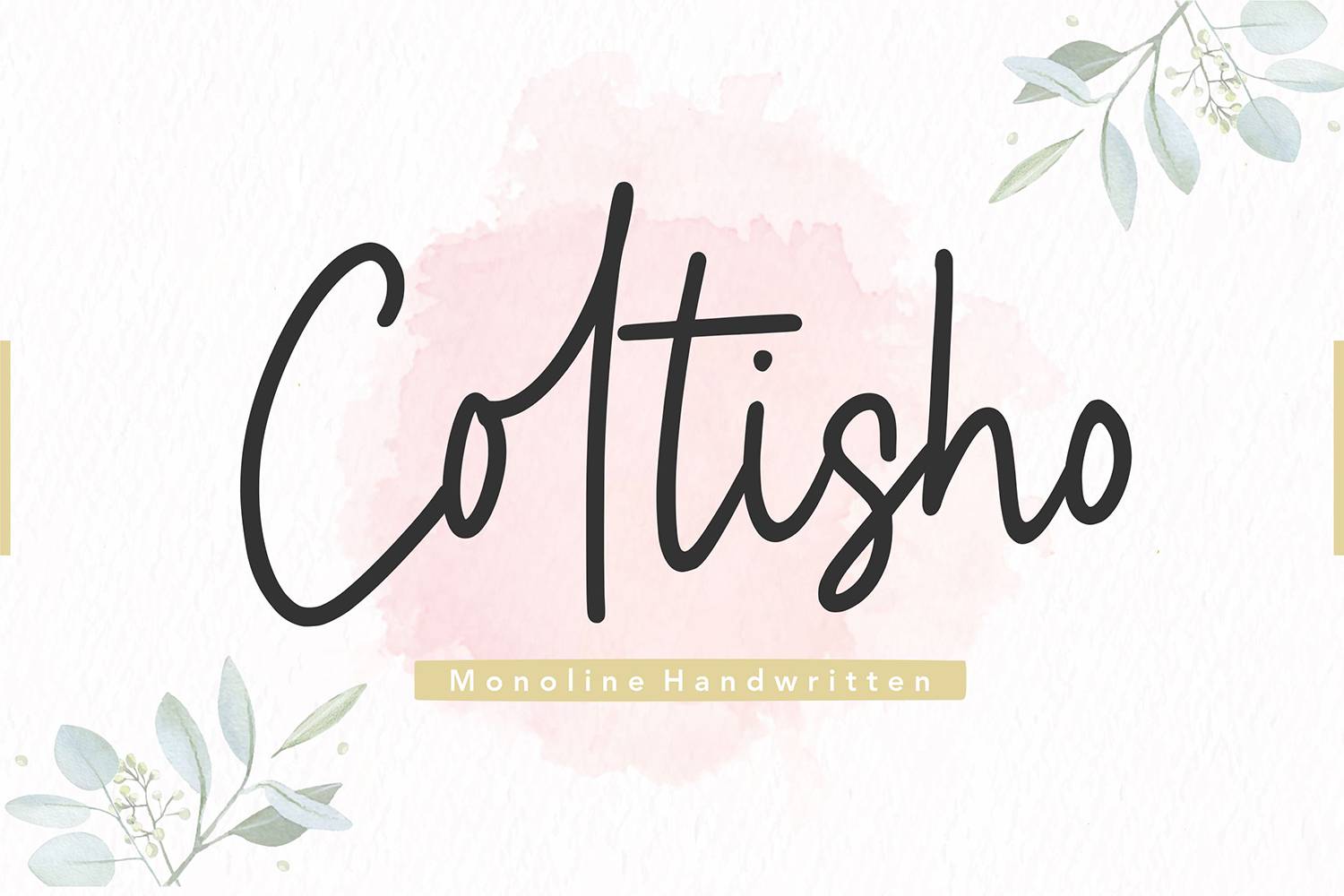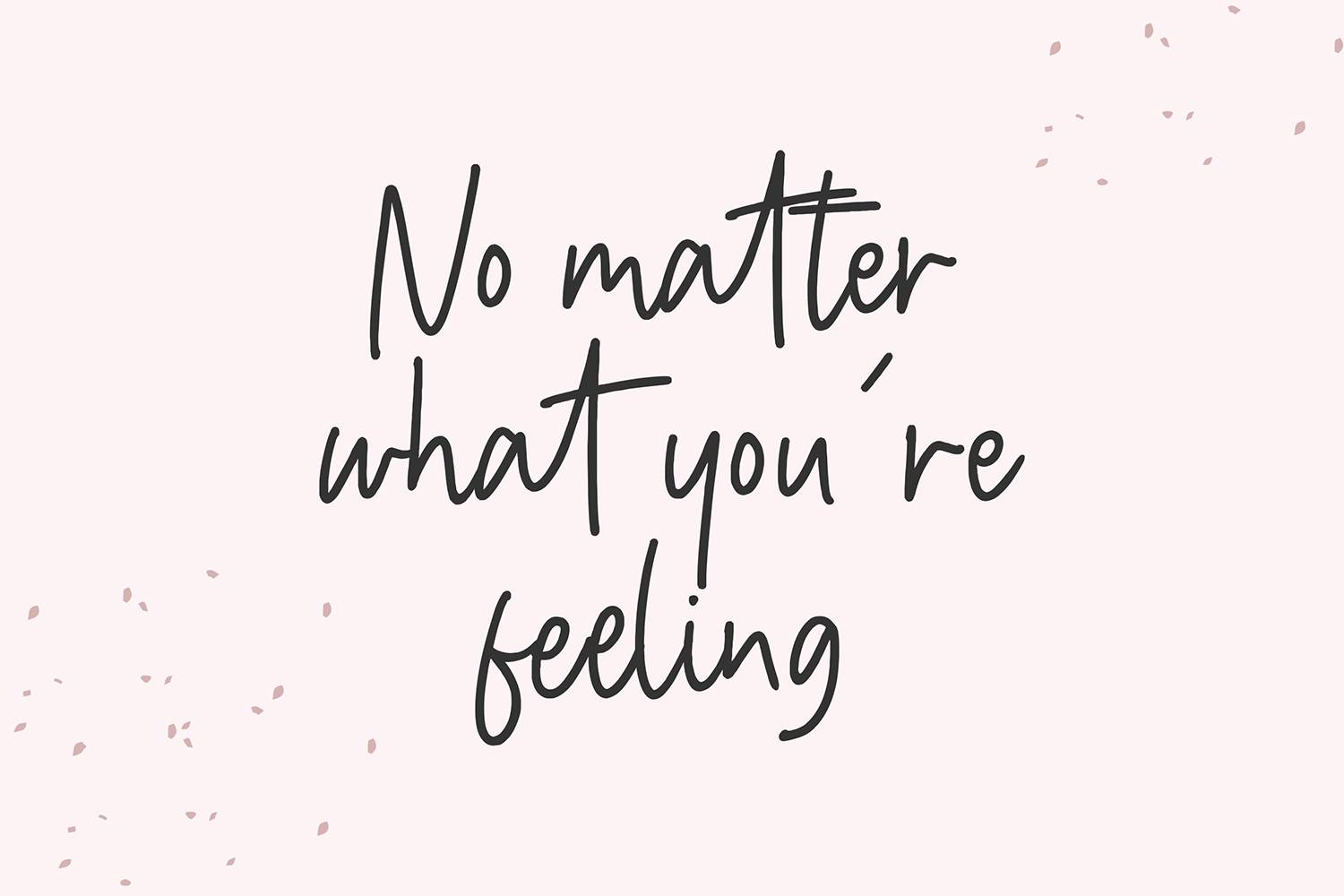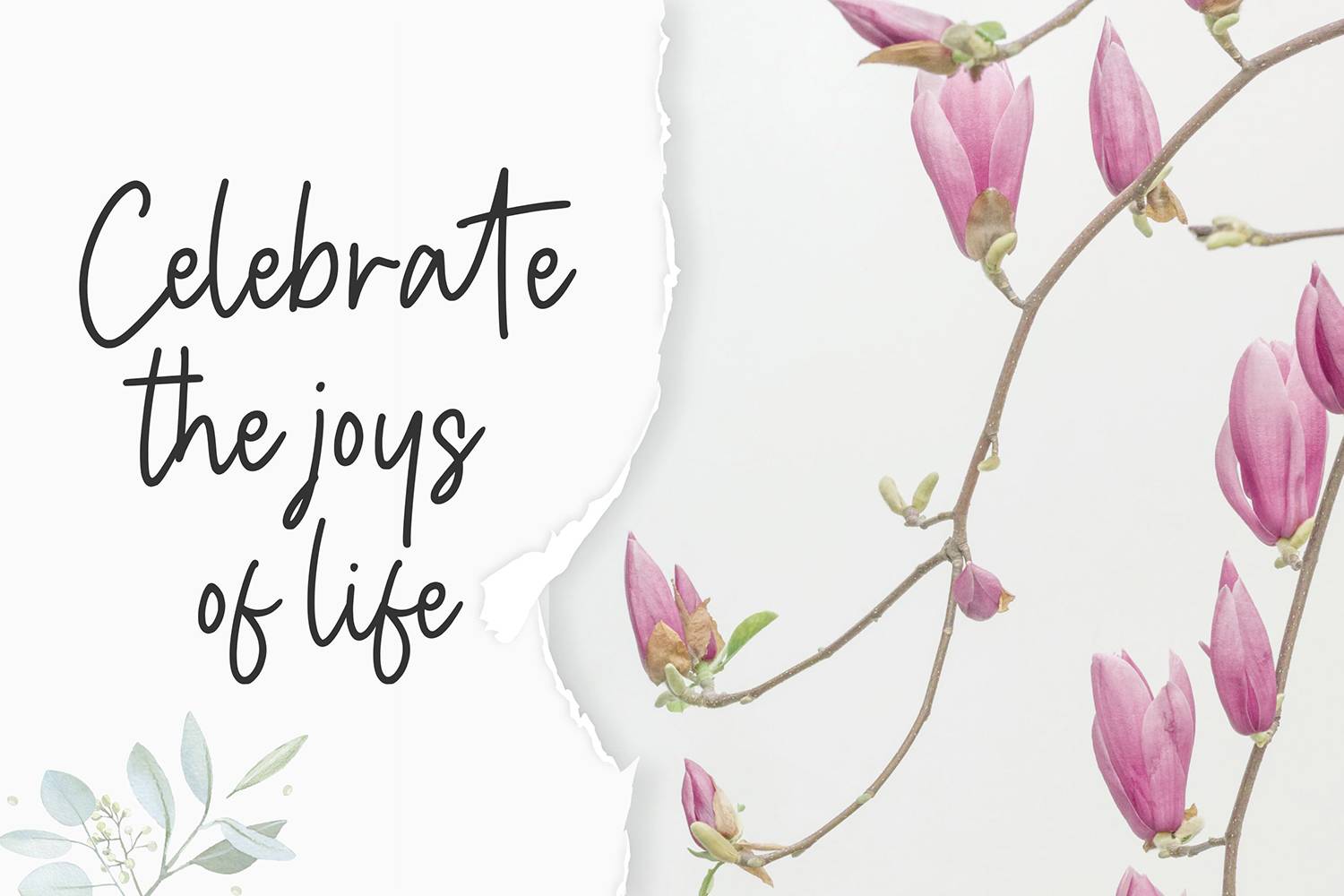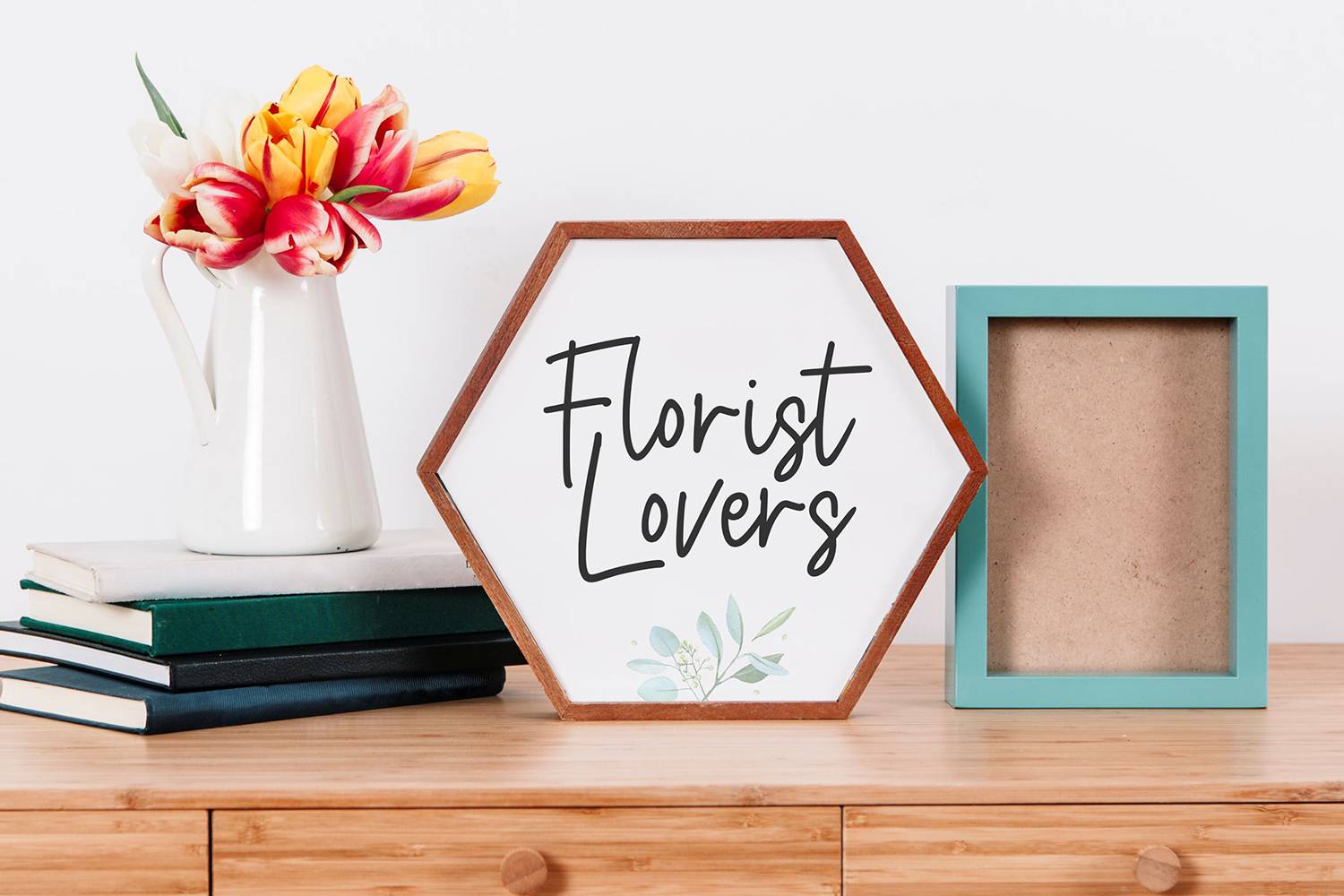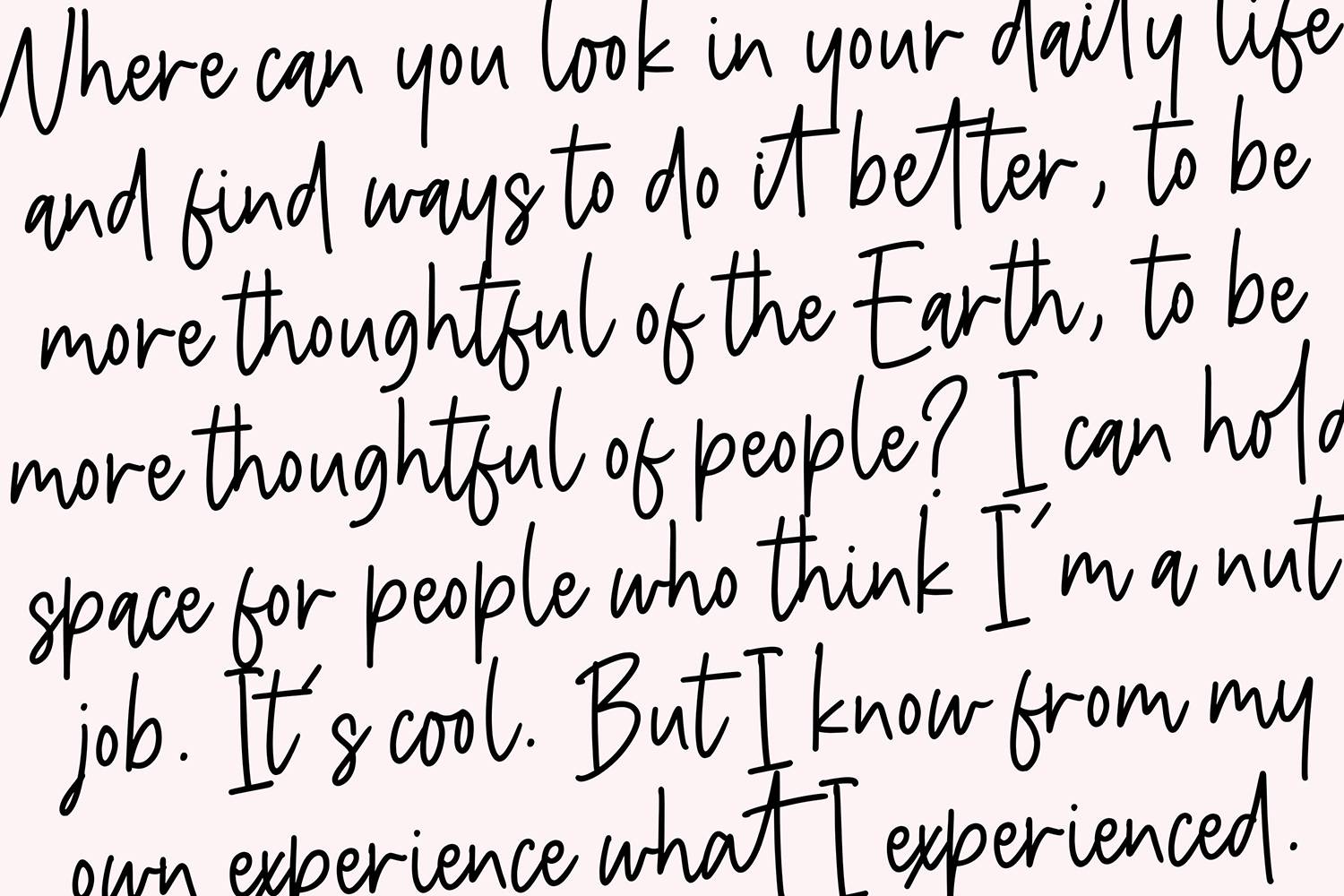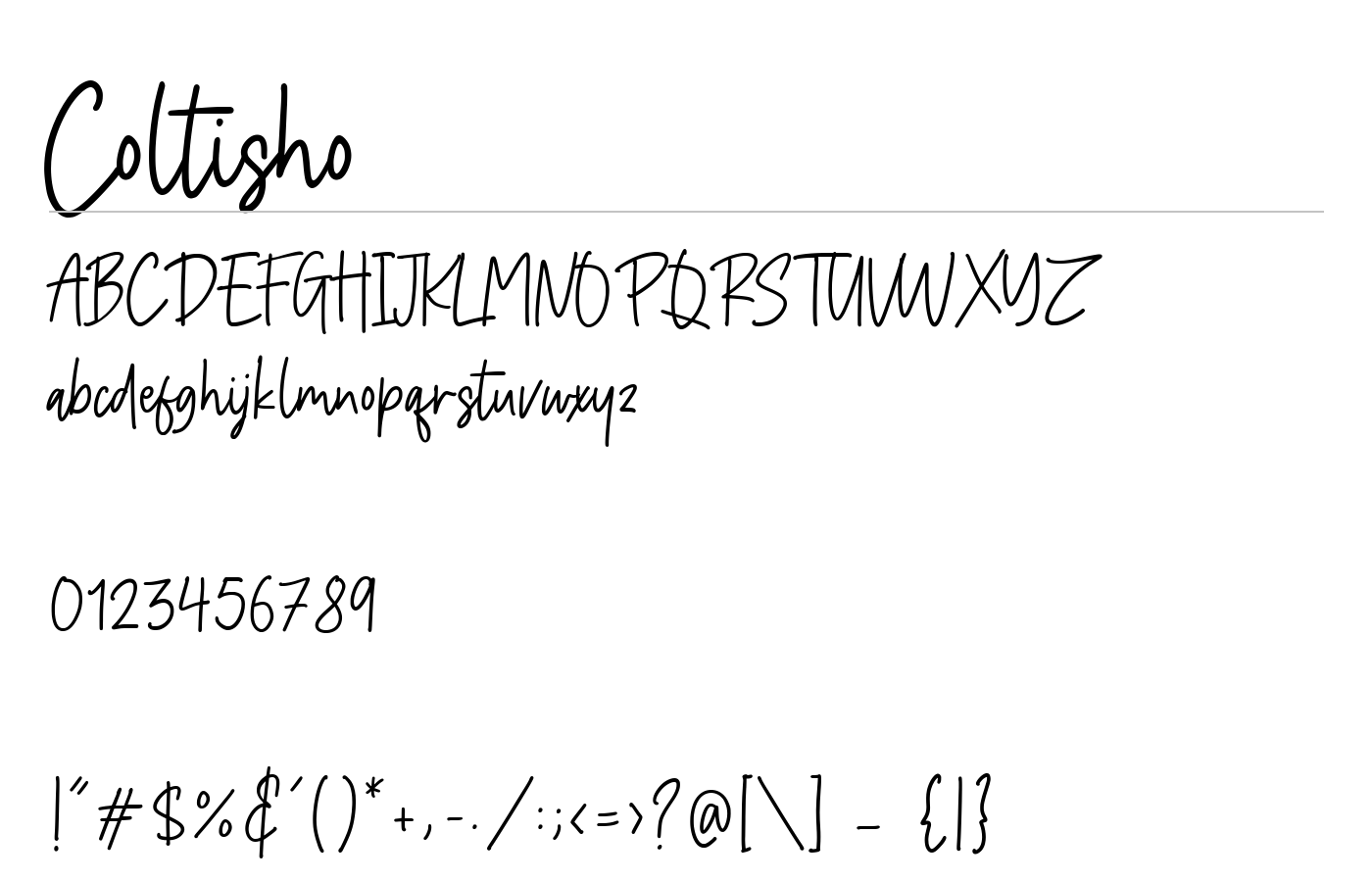
Coltisho is a casual, handwritten-style sans serif font with a light weight and airy spacing that gives it a friendly and approachable feel. Its tall x-height and slightly irregular, flowing strokes make it perfect for informal, creative projects like personal branding, lifestyle blogs, or playful headlines. This font works best where a natural, personal touch is desired to convey warmth and individuality.
Coltisho Font
About Coltisho Font
| Font family | Coltisho Font |
| Release date | 2020-04-16 |
| Designer | Balpirick 2020 |